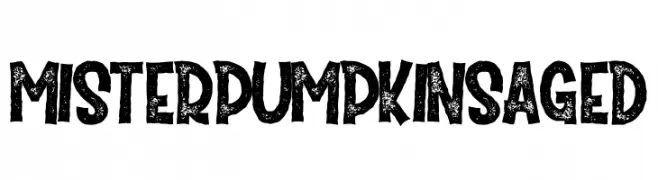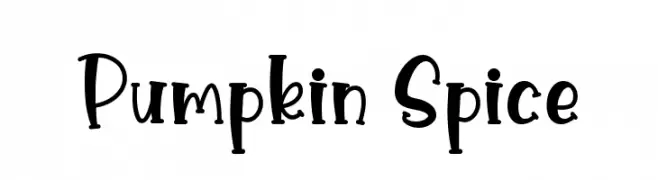
A bold, distressed font with a vintage, textured appearance.
A dynamic and expressive handwritten font with fluid, organic strokes.
A whimsical and decorative font with curly embellishments, perfect for festive and playful designs.
A whimsical, curly font with decorative elements, perfect for creative projects.
A lively and expressive script font with fluid, connected letterforms.
A playful, hand-drawn font with a whimsical and energetic style.
A playful, spooky font with quirky, uneven letterforms and bold strokes.
A bold, brushstroke font with a playful, artistic style and whimsical duck icons.
A playful handwritten font with a mix of slender uppercase and cursive lowercase letters.
A playful, handwritten font with smooth curves and a friendly appearance.